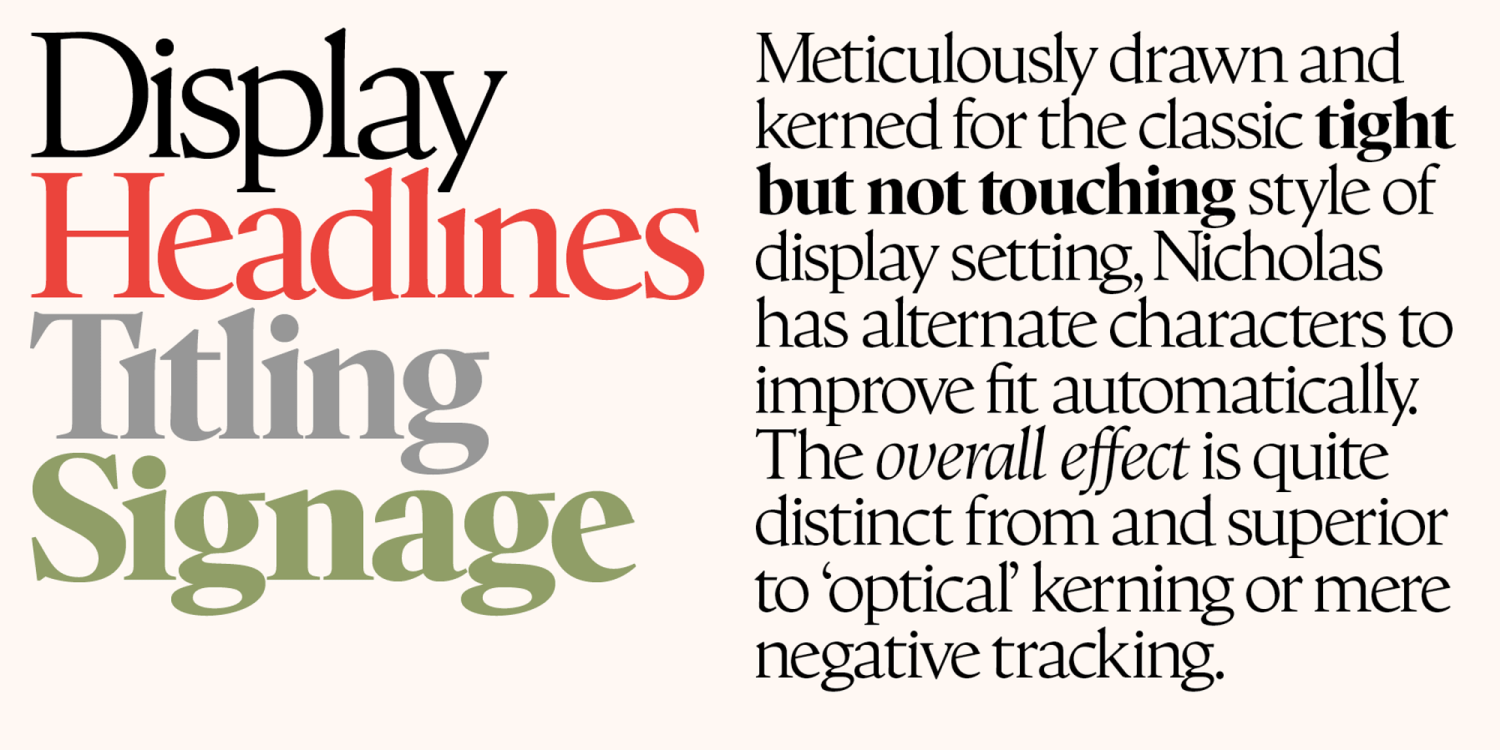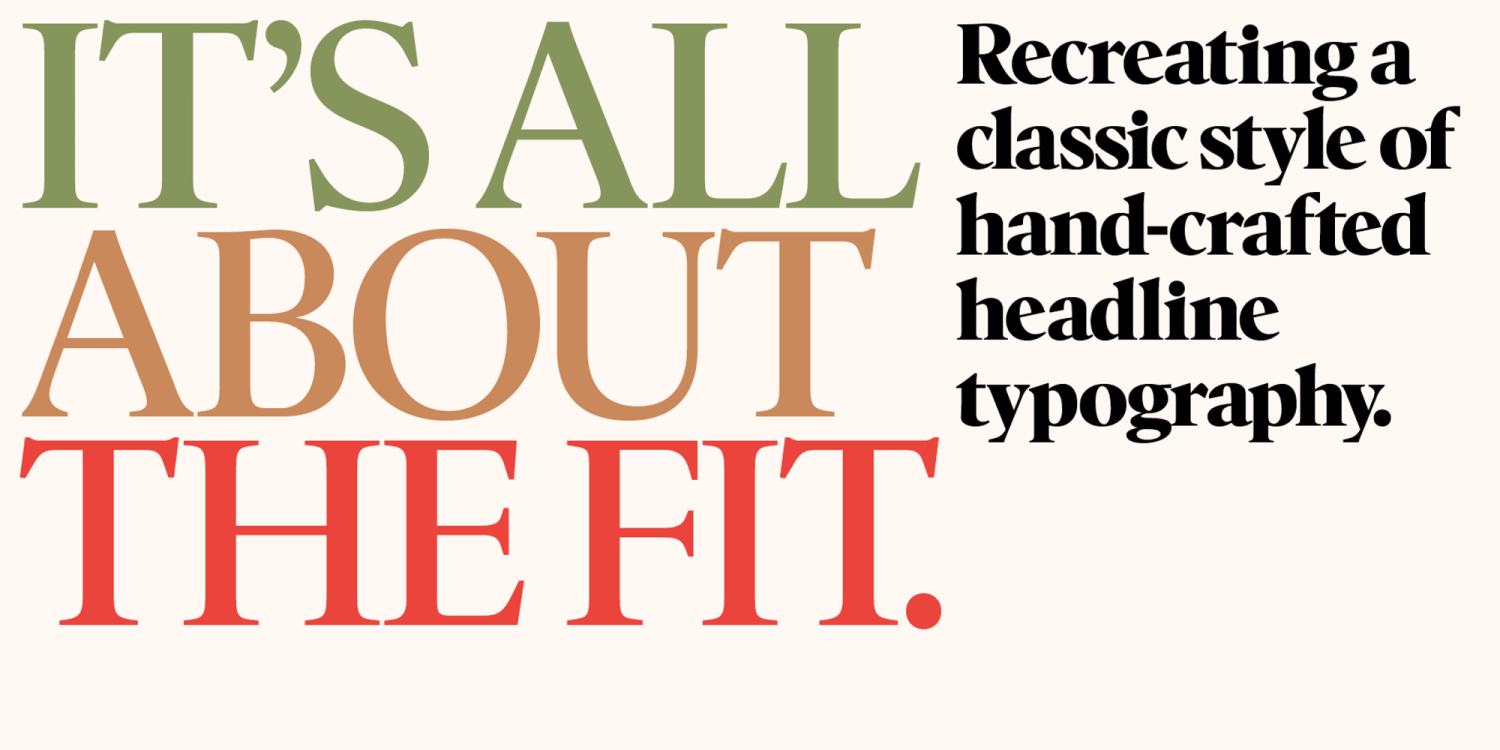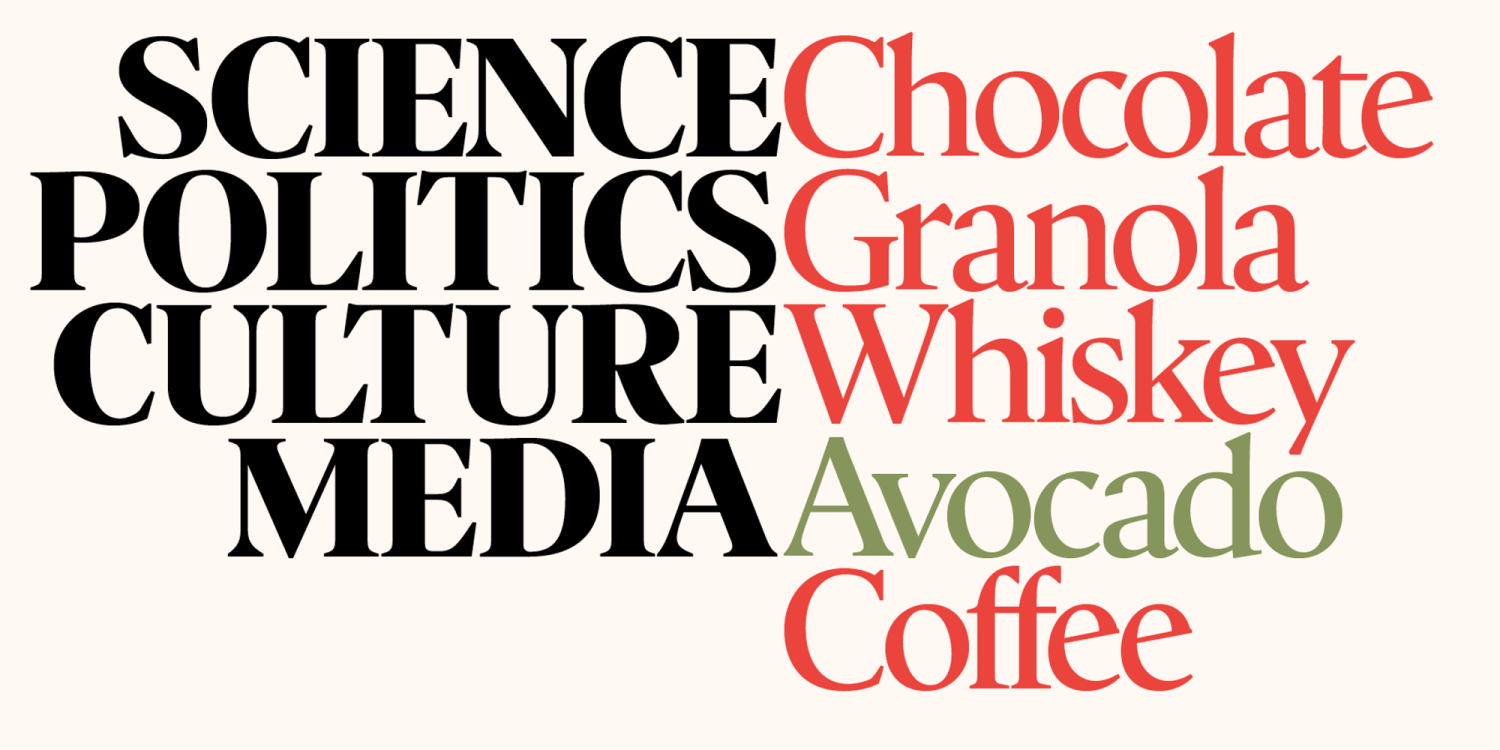
About Nicholas
Meticulously drawn and kerned for the classic Tight-But-Not-Touching style of display typography, Nicholas has alternate characters that improve \’t automatically. The overall effect is quite distinct from and superior to ?optical? kerning or mere negative…